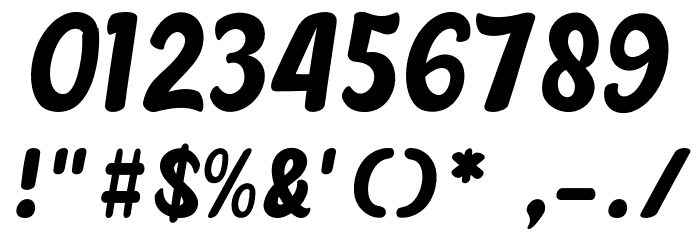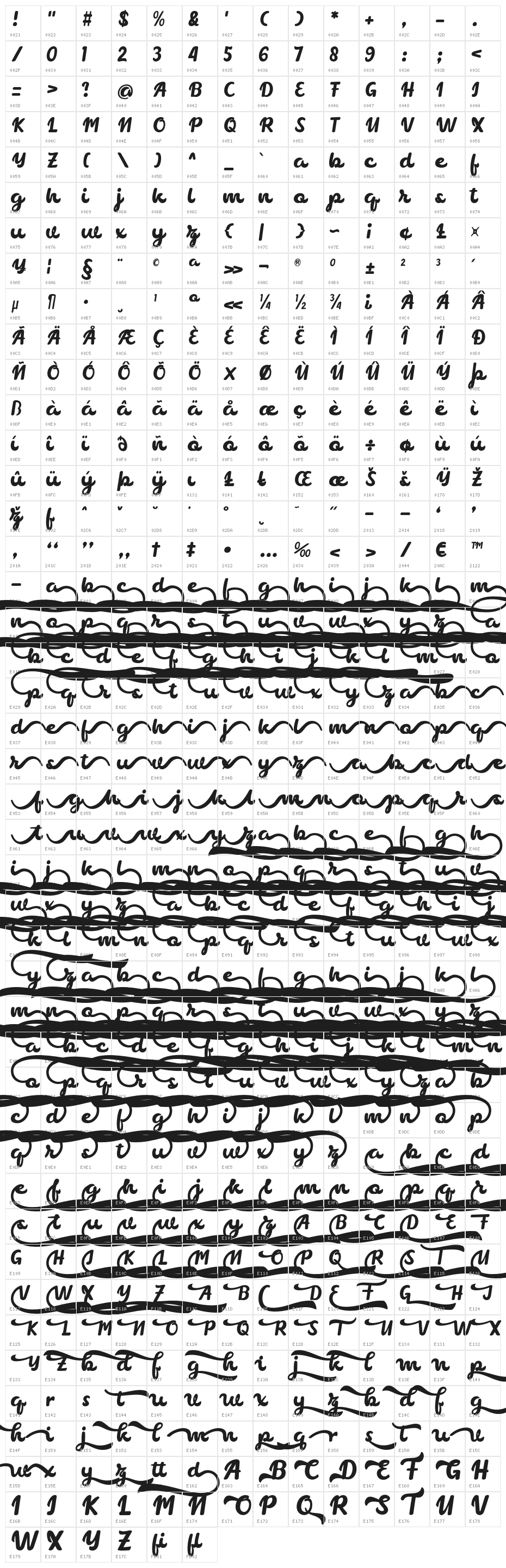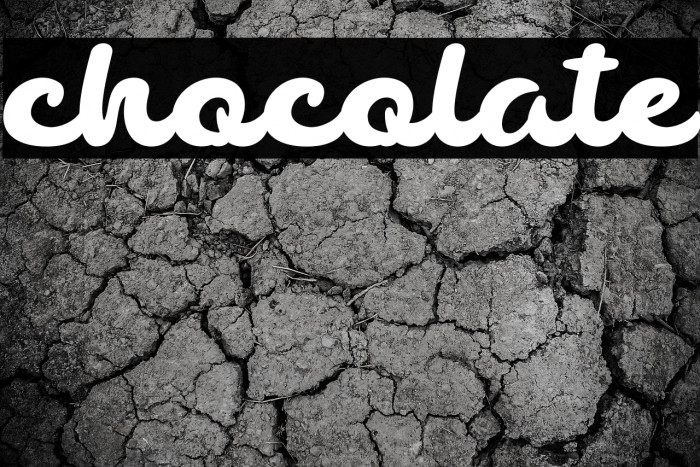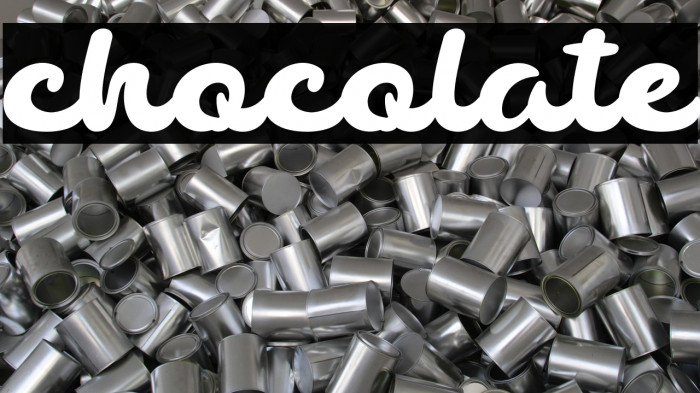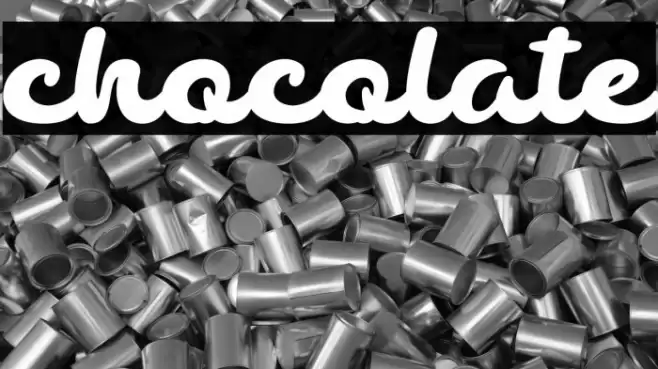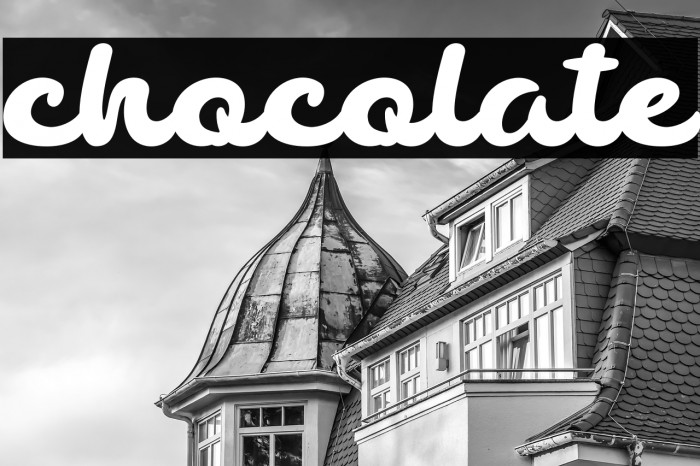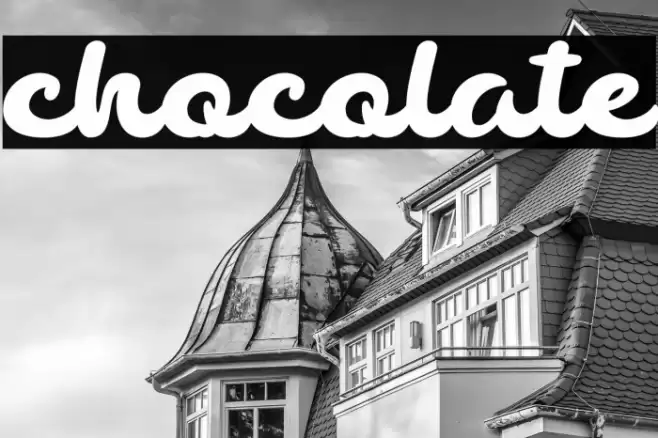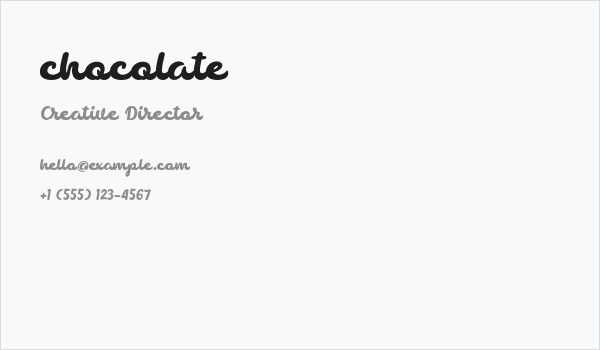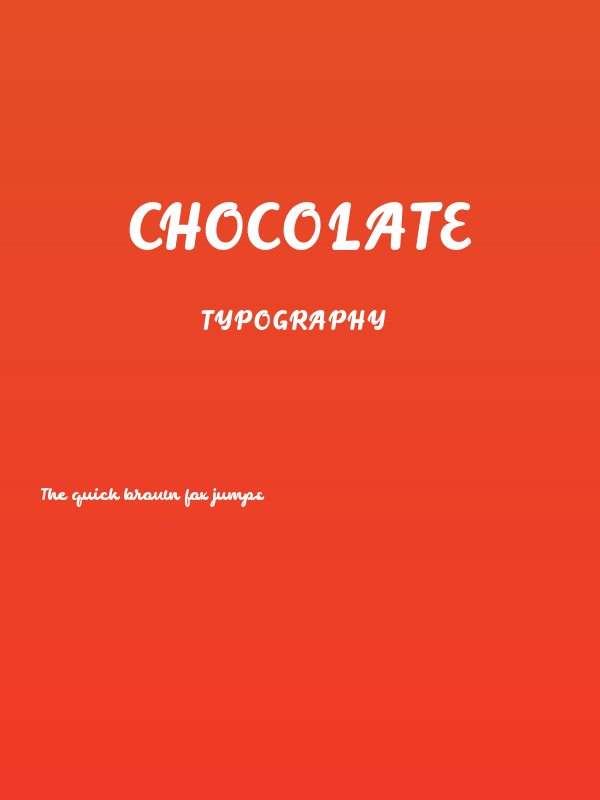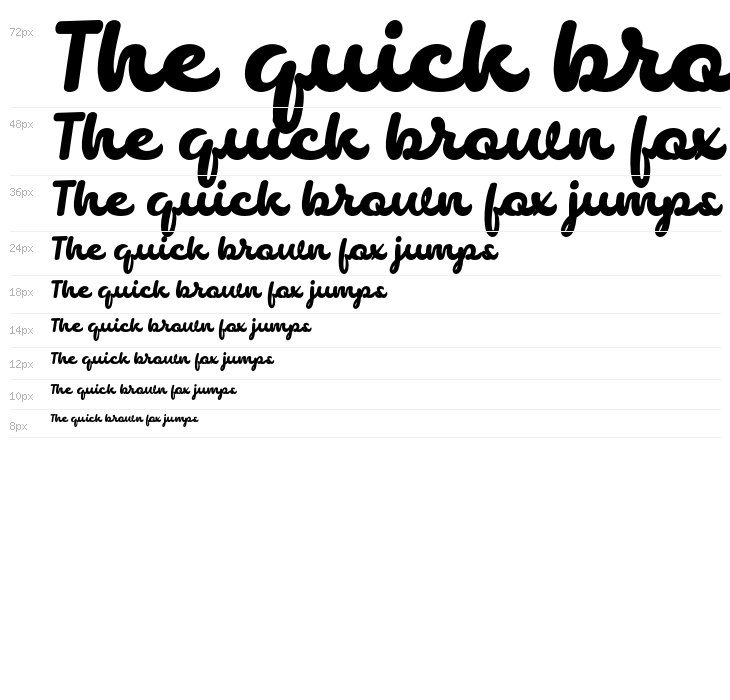
chocolate Font
chocolate Description
This font features a bold, cursive style with smooth, flowing lines that create a sense of movement and elegance. The uppercase letters are slightly slanted, giving them a dynamic appearance, while the lowercase letters maintain a consistent flow with rounded edges. The numbers are bold and easily readable, complementing the overall aesthetic. Special characters are designed to match the cursive style, ensuring a cohesive look across all text elements. The font's playful yet sophisticated design makes it suitable for a variety of creative projects.